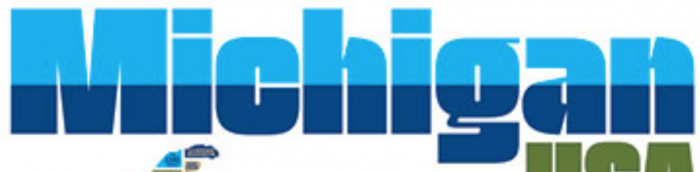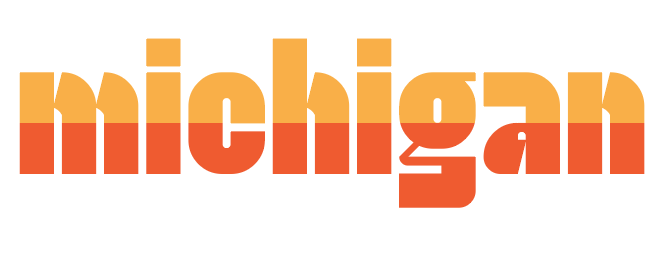
• Trying To Remake The Font From The Following Michigan Poster On A Grid. I can't find the actual font, maybe someone else can.
Only started with lower case and mostly just "michigan"
*Work in Progress
Poster By the almighty DDC / Aaron Draplin
Orignal Photo Below    \/   \/   \/   \/    \/ Poster
My Version of Font Below
I think i've seen similar font
I can't find it in microsoft pc pre-installed fonts
Cool, if you find the name tell me, but I will work on this because of how interesting it is. Thanks
Its Neil Bold. Will you finish your version? It looks even more interesting than the original.